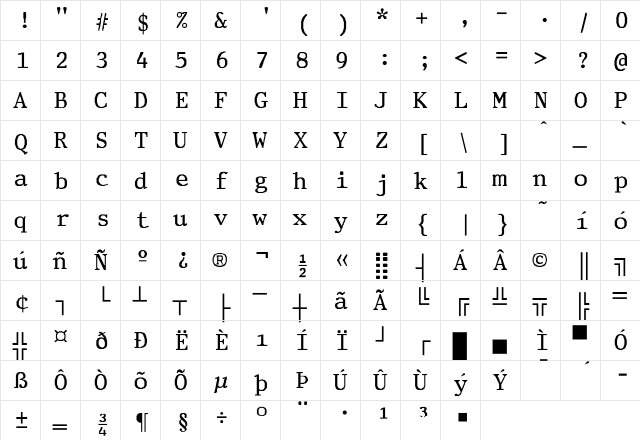
ShalemarEliteBold-Bold Regular
Design Context for ShalemarEliteBold-Bold Typeface
ShalemarEliteBold-Bold offers clean, dependable letterforms without strong stylistic allegiance, making it a practical choice for designers who need flexibility. Its bold stroke weight gives it real presence on the page.